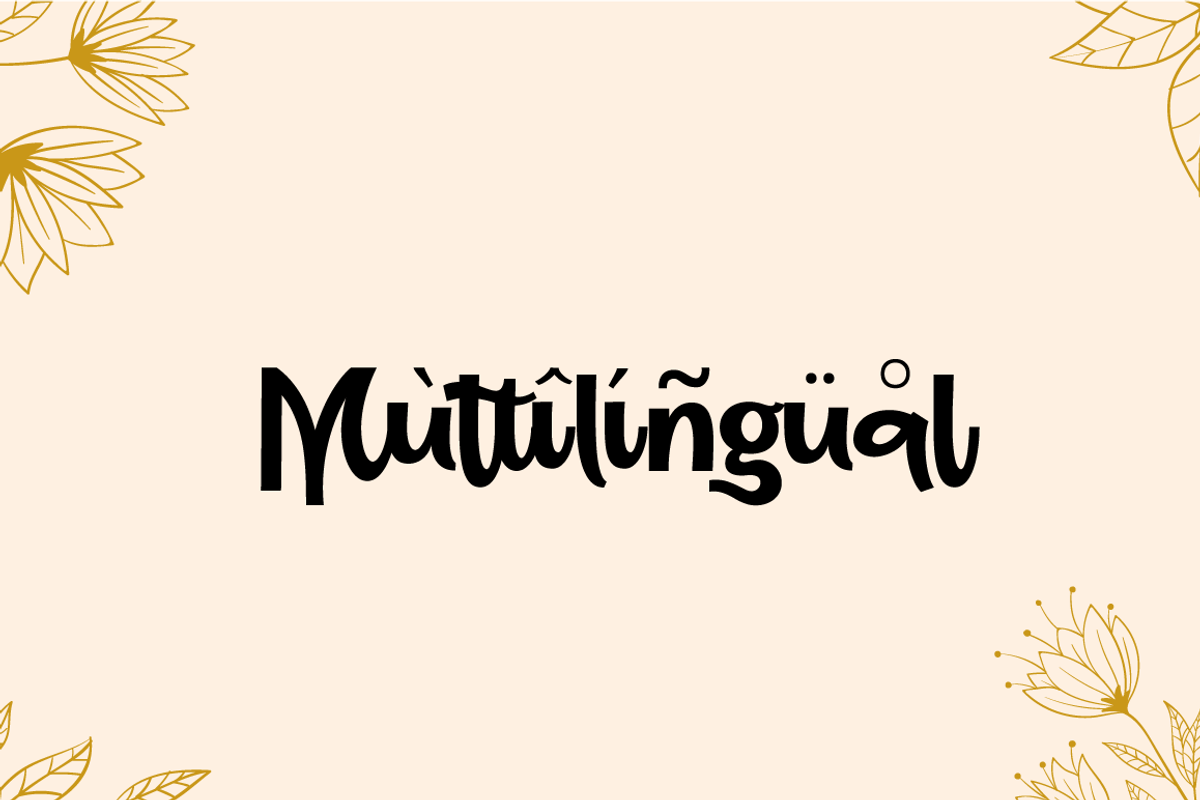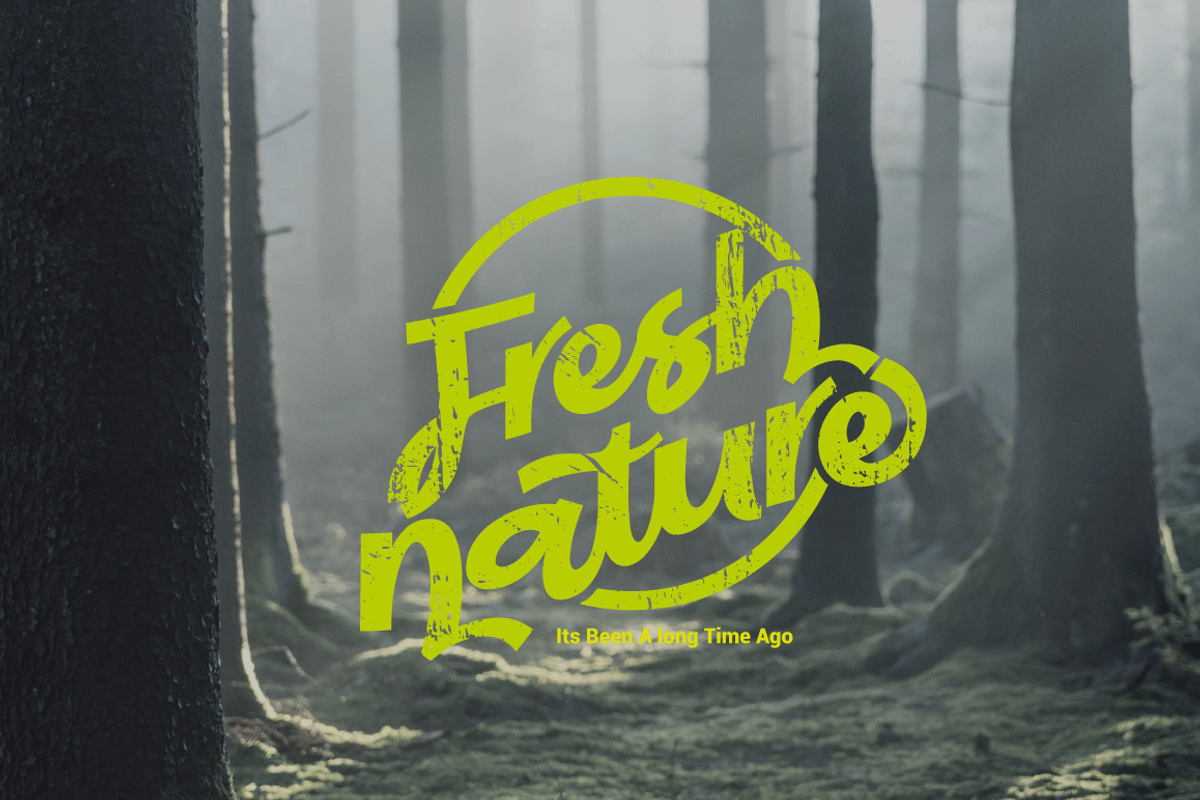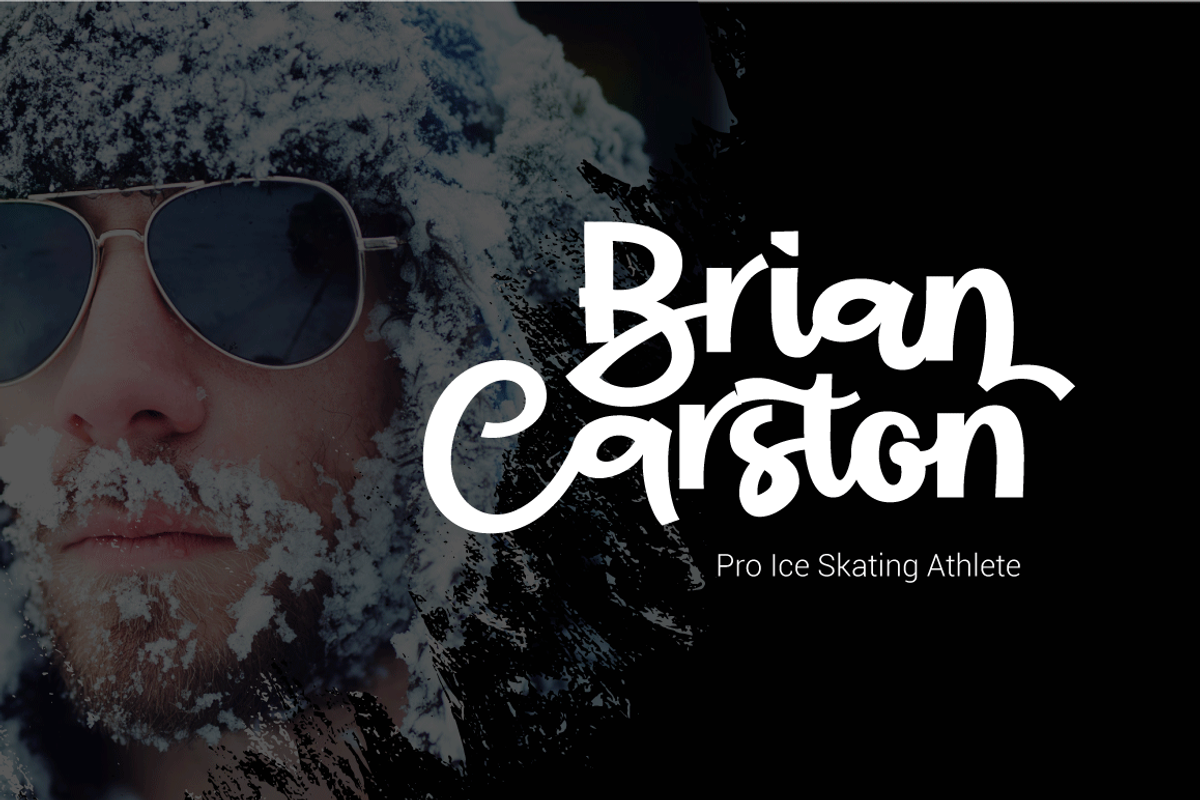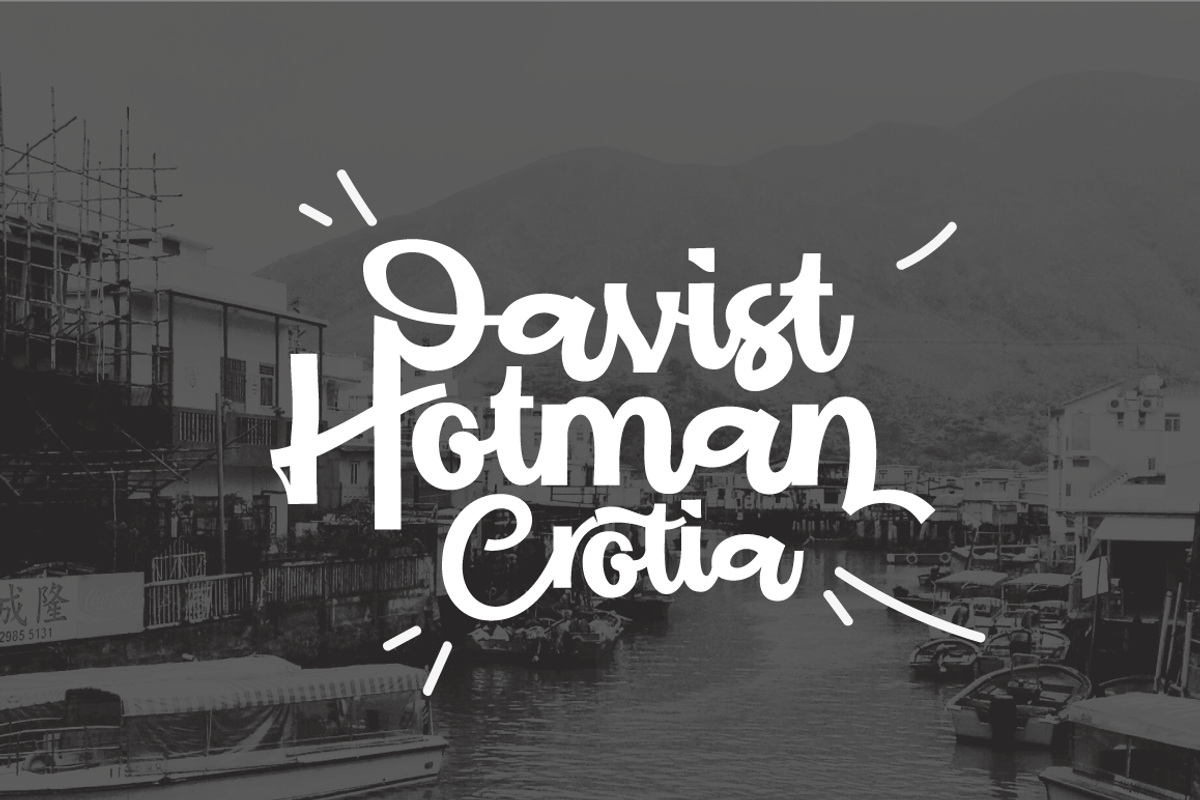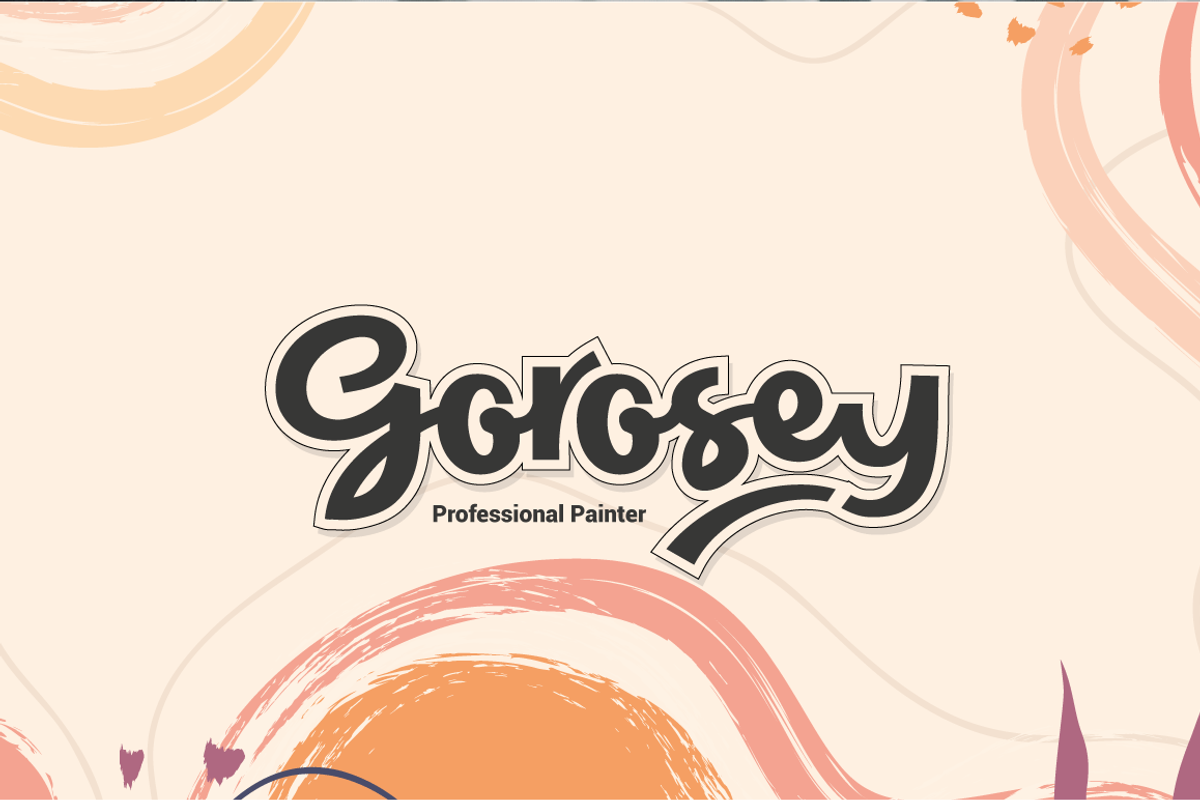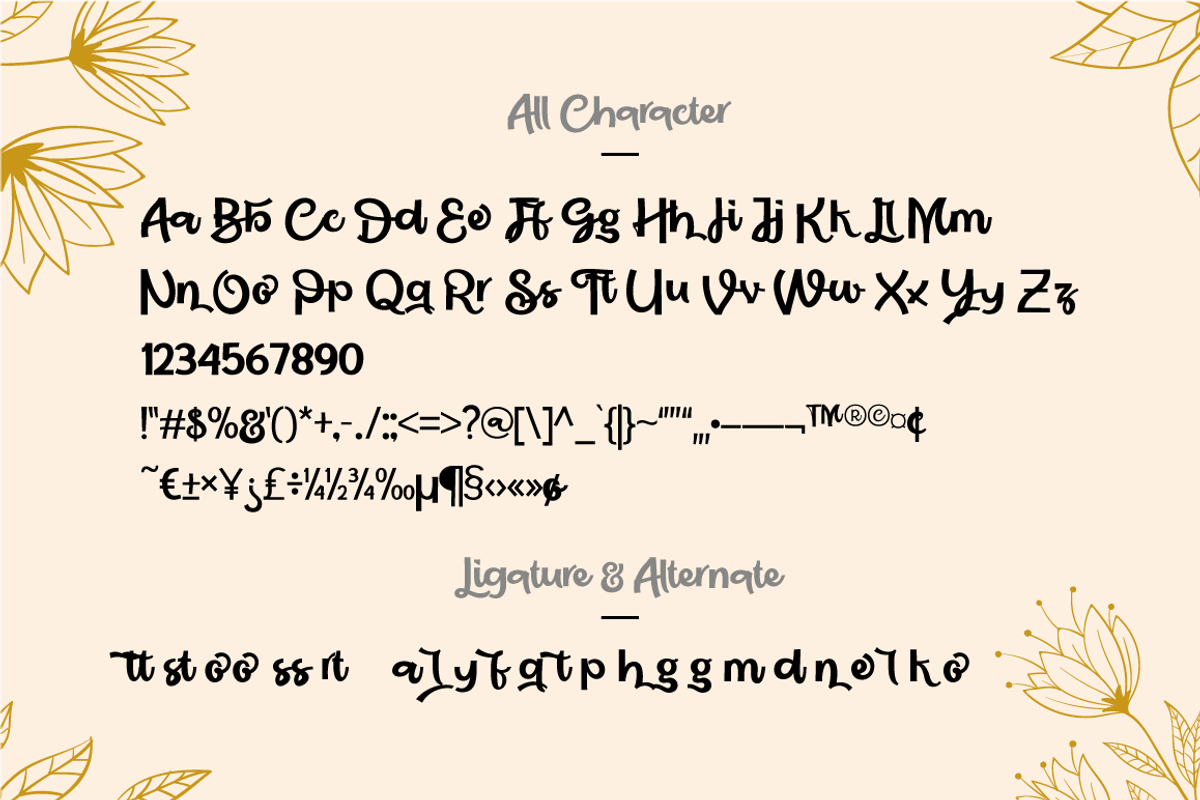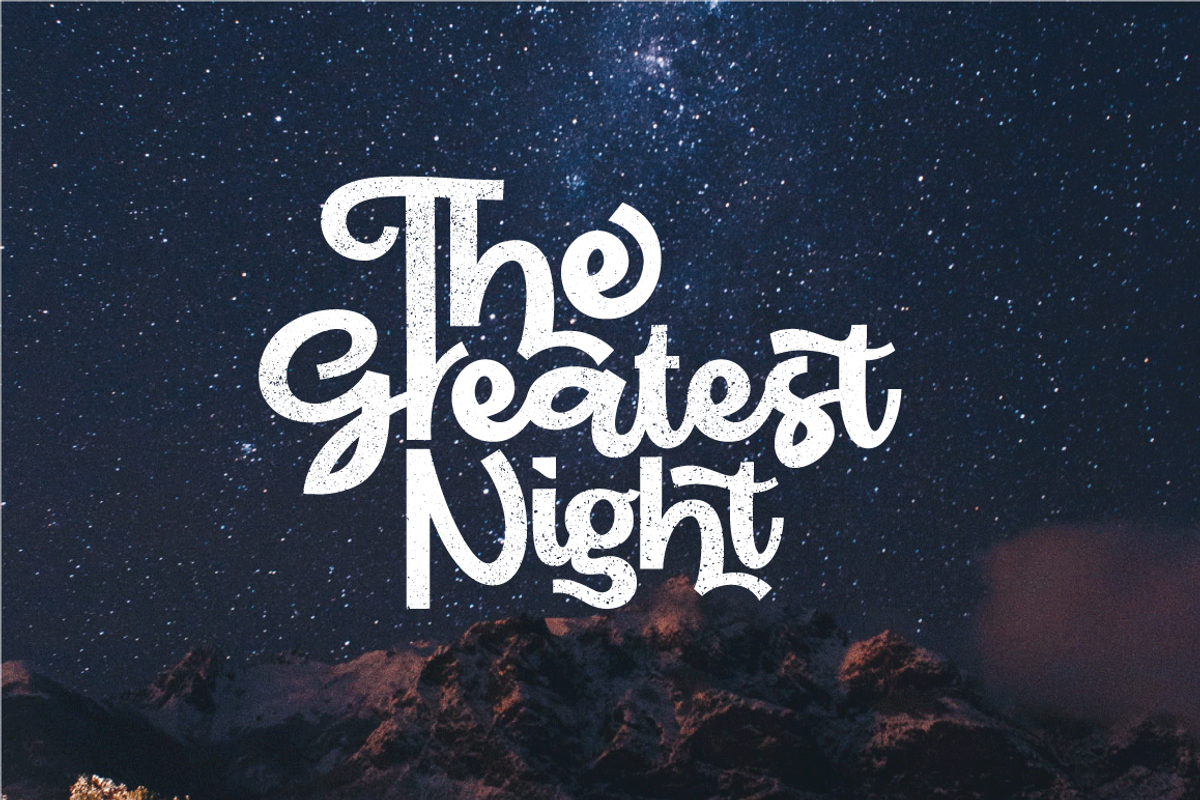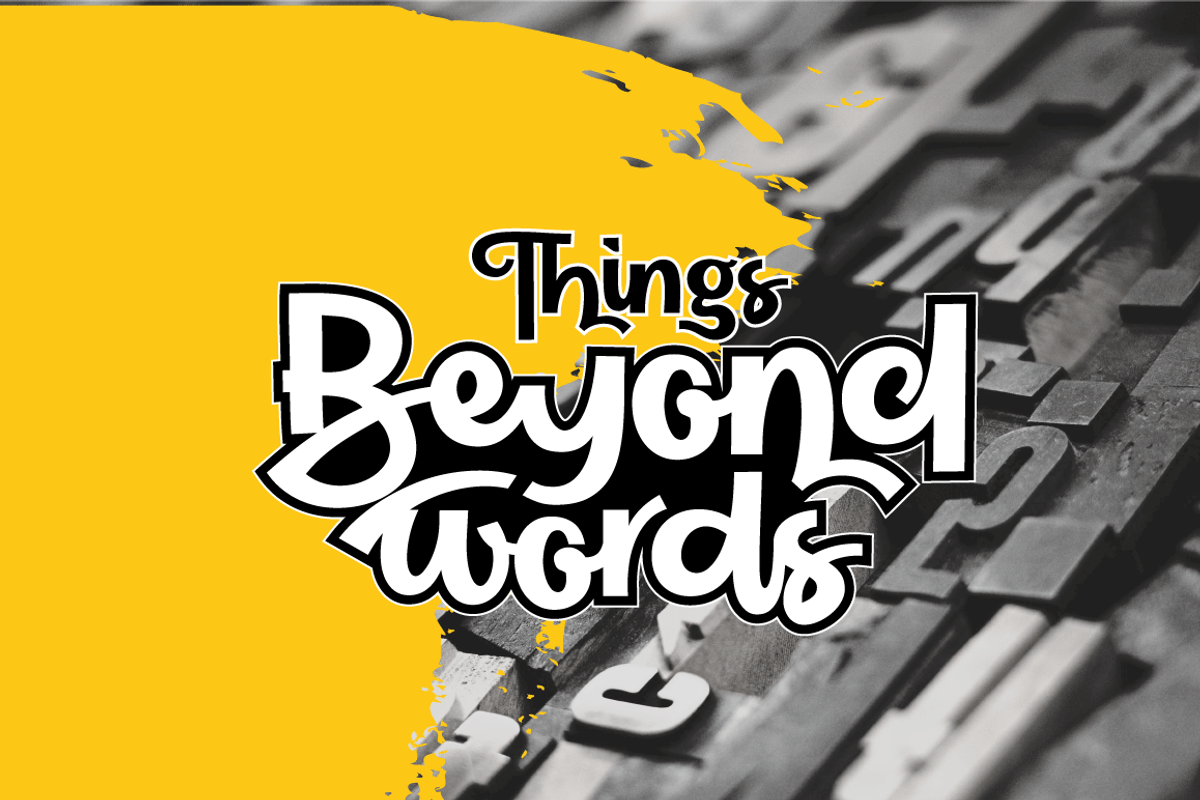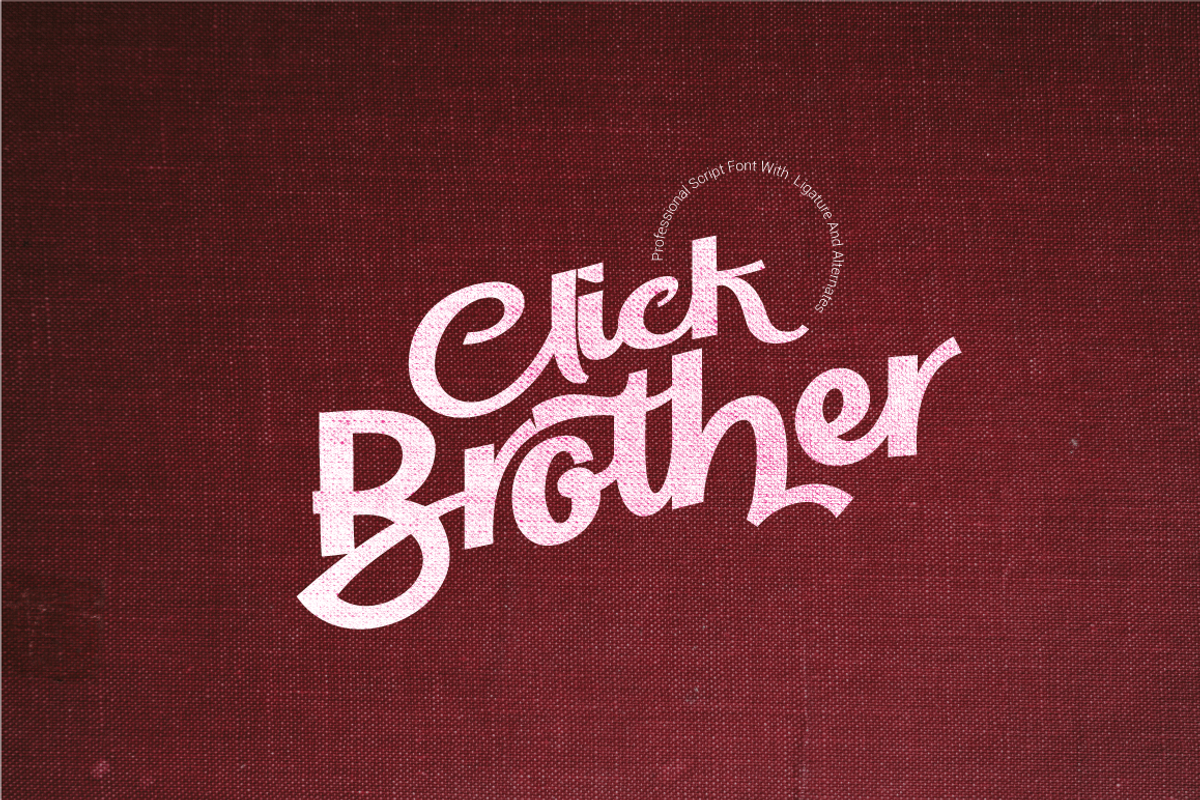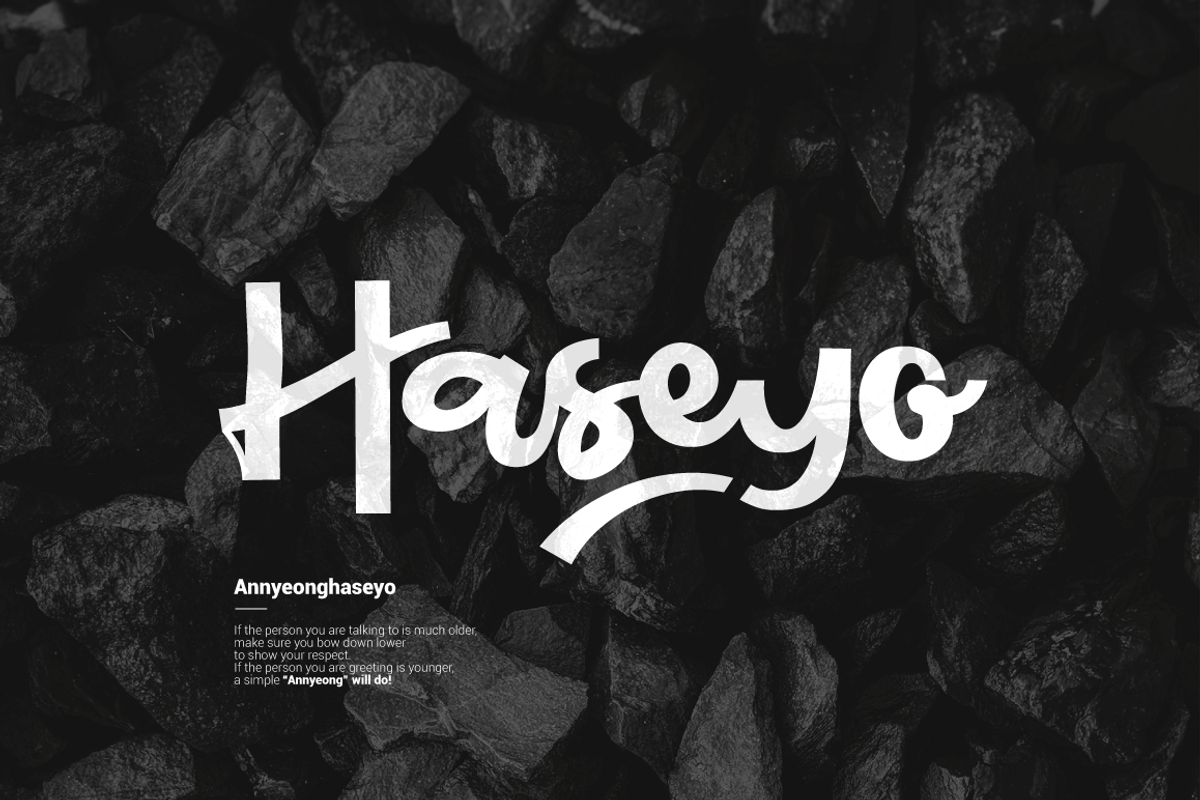
Click Brother Script
Click Brother is an awesome and elegant script font which is first made by hand and deliver an unique style. This font comes with multiple ligatures and alternates to give you an extra creative work. Click Brother font support multilingual languages. The font is very good for logo tagline, Invitation Header, Flyer, magazine titles, etc. Make an amazing work with Click Brother Font.